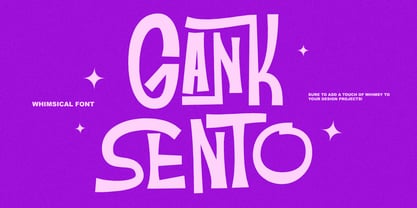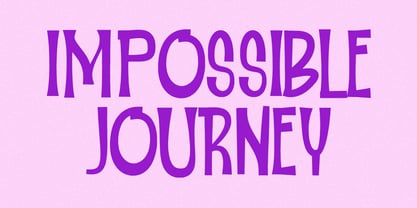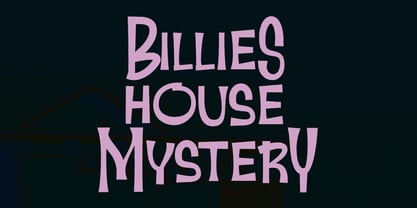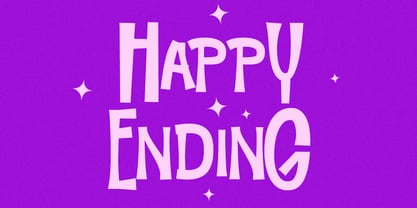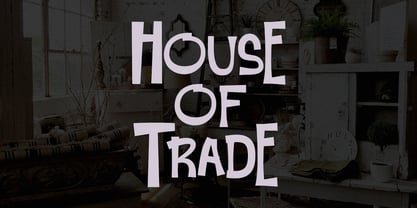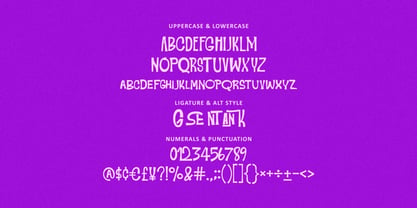
MC Gank Sento
by Maulana Creative
The MC Gank Sento Font Family was designed by Gilang Maulana and published by Maulana Creative. MC Gank Sento contains 1 styles. More about this family
Gank Sento is a whimsical style display font. Fun character with a bit of ligatures and alternate. To give you an extra creative work. Gank Sento whimsical font support multilingual more than 100+ language. This font is good for logo design, Social media, Movie Titles, Books Titles, a short text even a long text letter and good for your secondary text font with sans or serif. Make a stunning work with Gank Sento font.
Designers: Gilang Maulana
Foundry: Maulana Creative